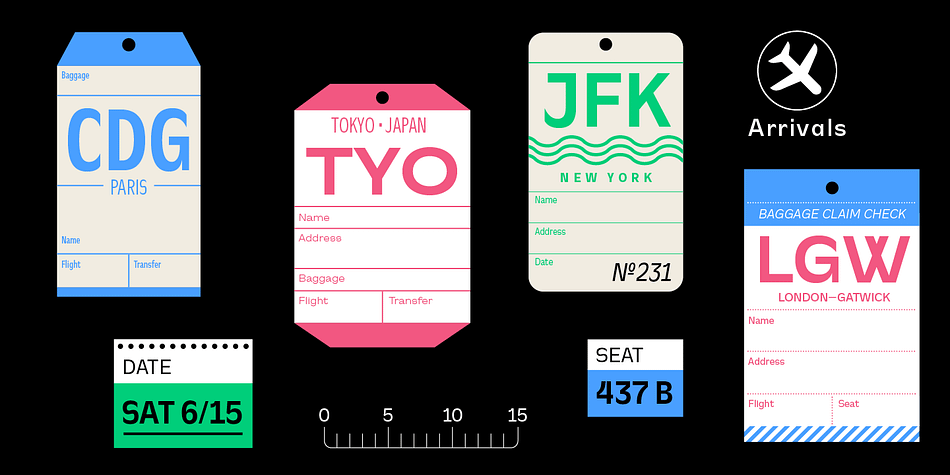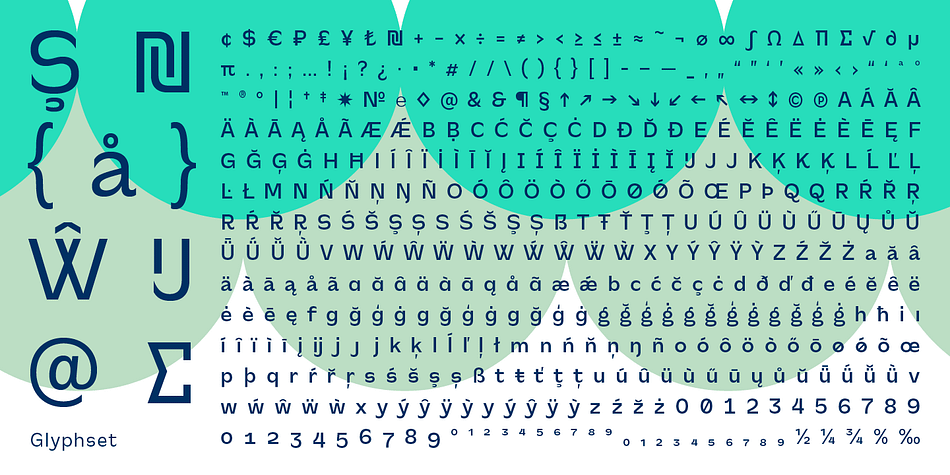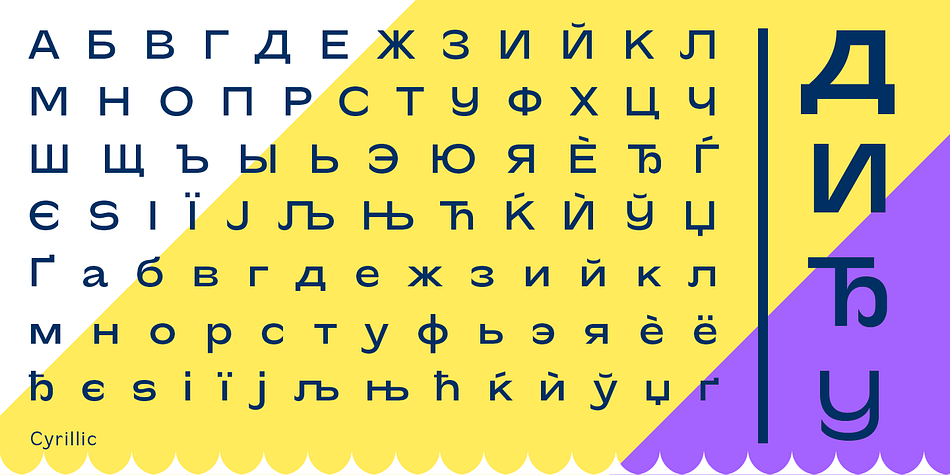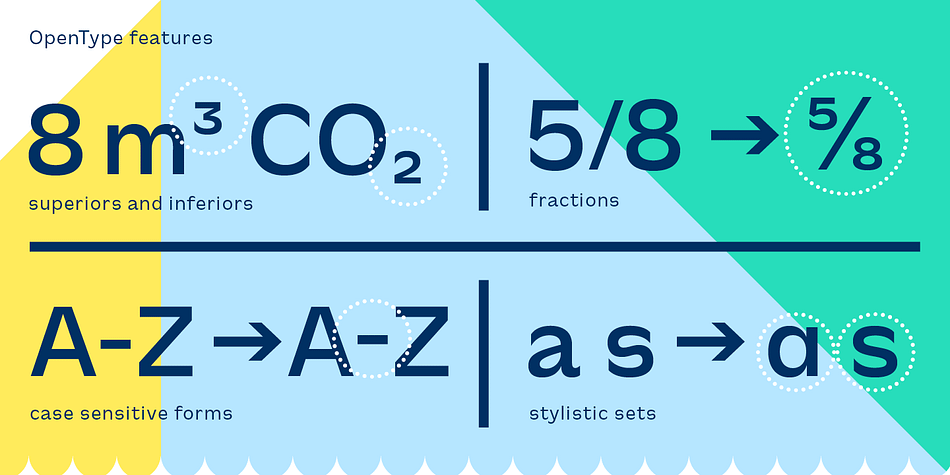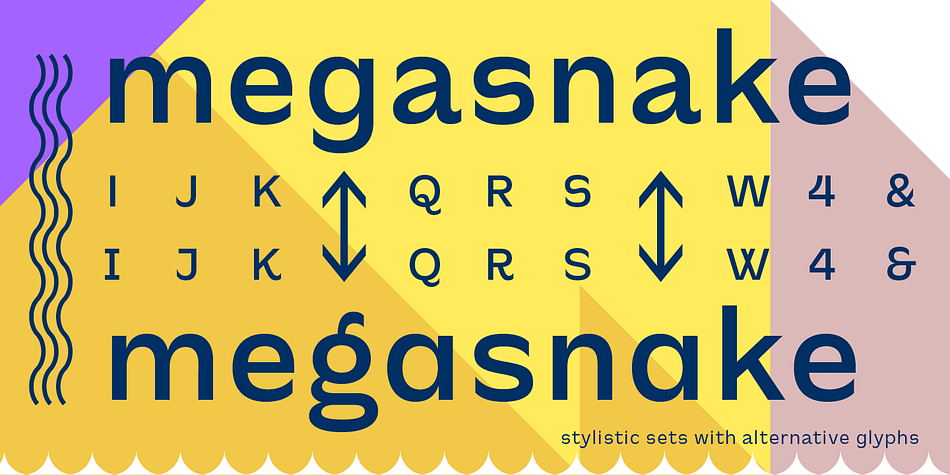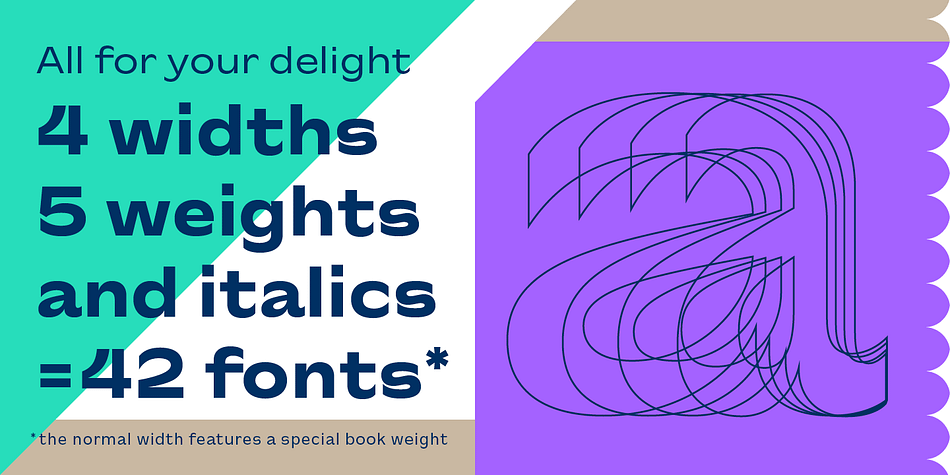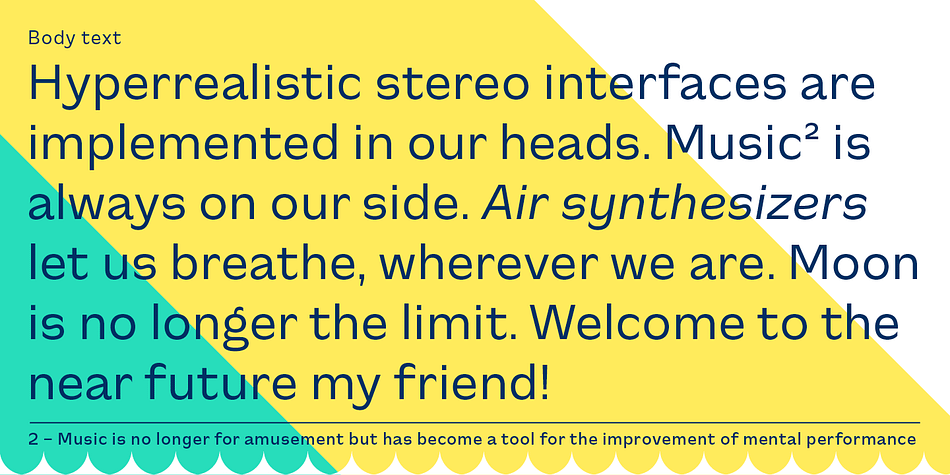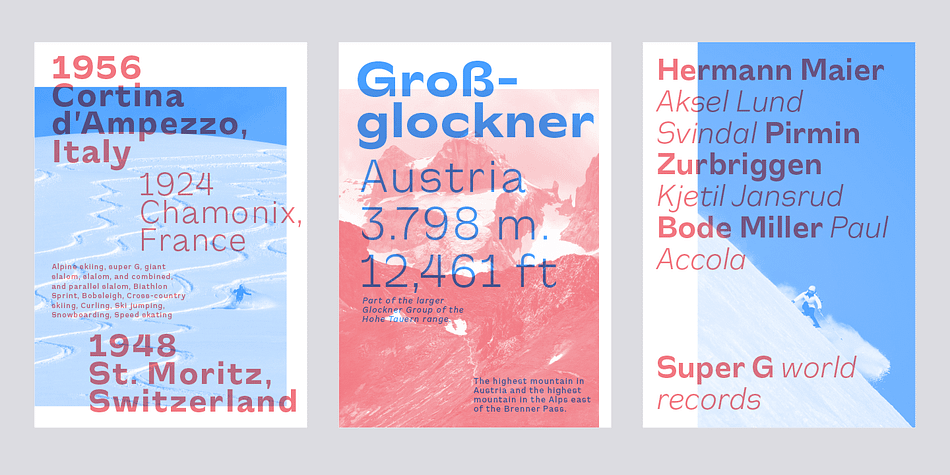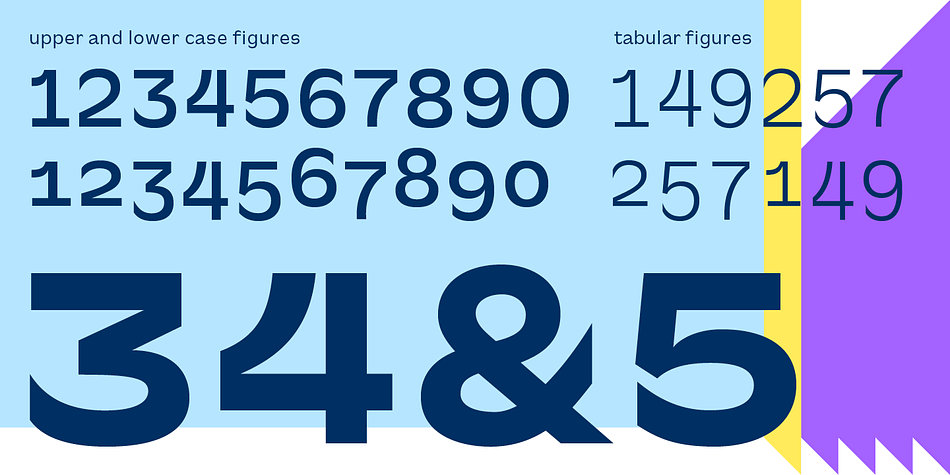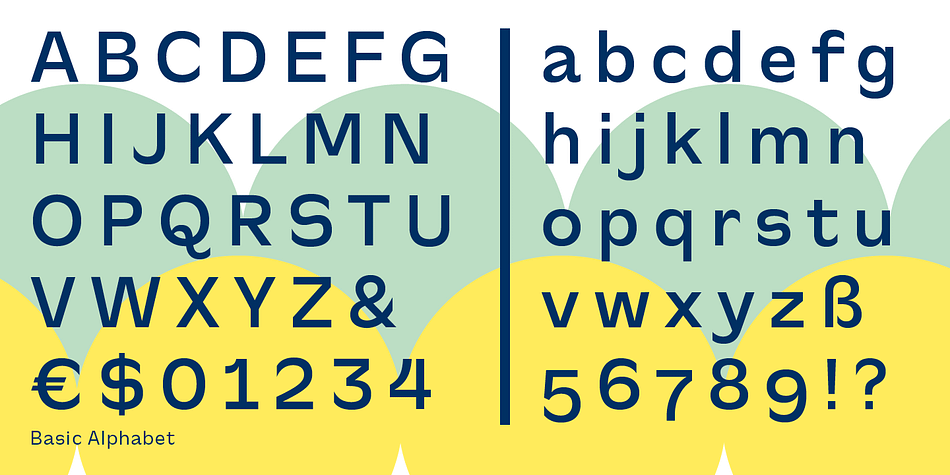
Designed by Stefan Claudius, CA Slalom Condensed is a sans serif font family. This typeface has ten styles and was published by Cape Arcona Type Foundry.
The starting point for CA Slalom was the aspiration to create a contemporary interpretation of classics like Gill and Antique Olive in terms of aesthetics, flexibility and usefulness. The outstanding S soon became the visual hook and starting from the extra bold extended weight, CA Slalom evolved into a huge family with four widths. It’s rather round instead of squarely with stroke-ends pulled deep and a relatively low x-height. This gives CA Slalom a taste of its own, and although it is clearly contemporary, it has the potential to become a classic.